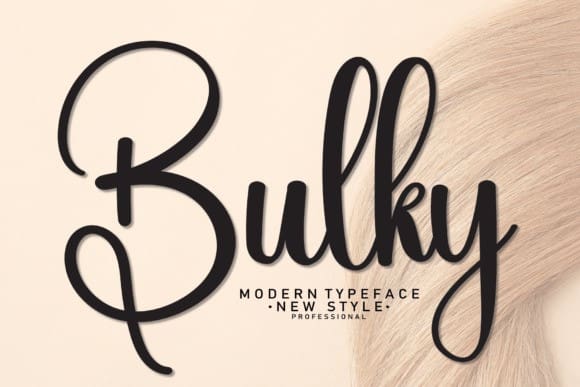
Bulky Script Font
Bulky Script Font, feels equally charming and elegant. It looks stunning on wedding invitations, thank you cards, quotes, greeting cards, logos, business cards, and every other design which needs a handwritten touch.